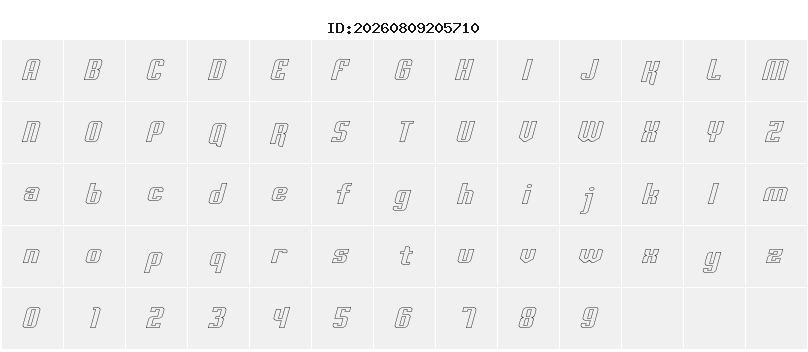
• Font Name: Palisoc Extended Hollow
• Designer: Neale Davidson
About Palisoc Extended Hollow.ttf
Palisoc Extended Hollow.ttf is a modern, elegant sans-serif font designed for ultimate readability and visual harmony. Perfect for branding, headlines, web design, and print materials.